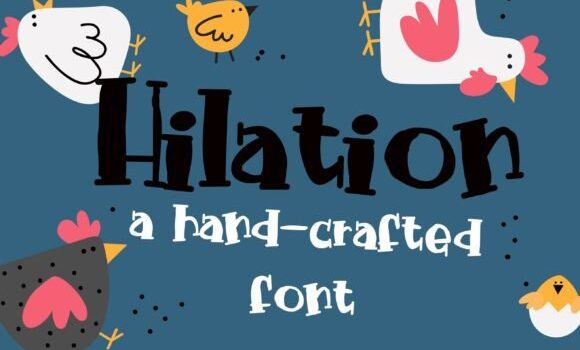
hilation
Hilation Font - Featured Image
Hilation Font – Free Download Introduction to Hilation Font Hilation is a quirky and chic display font. 📸 Preview Gallery 6 images 📌 Product Name Hilation Font 👤 Author Illustration Ink 📂 Category Explore ⬇️ Download Hilation Font FREE Free